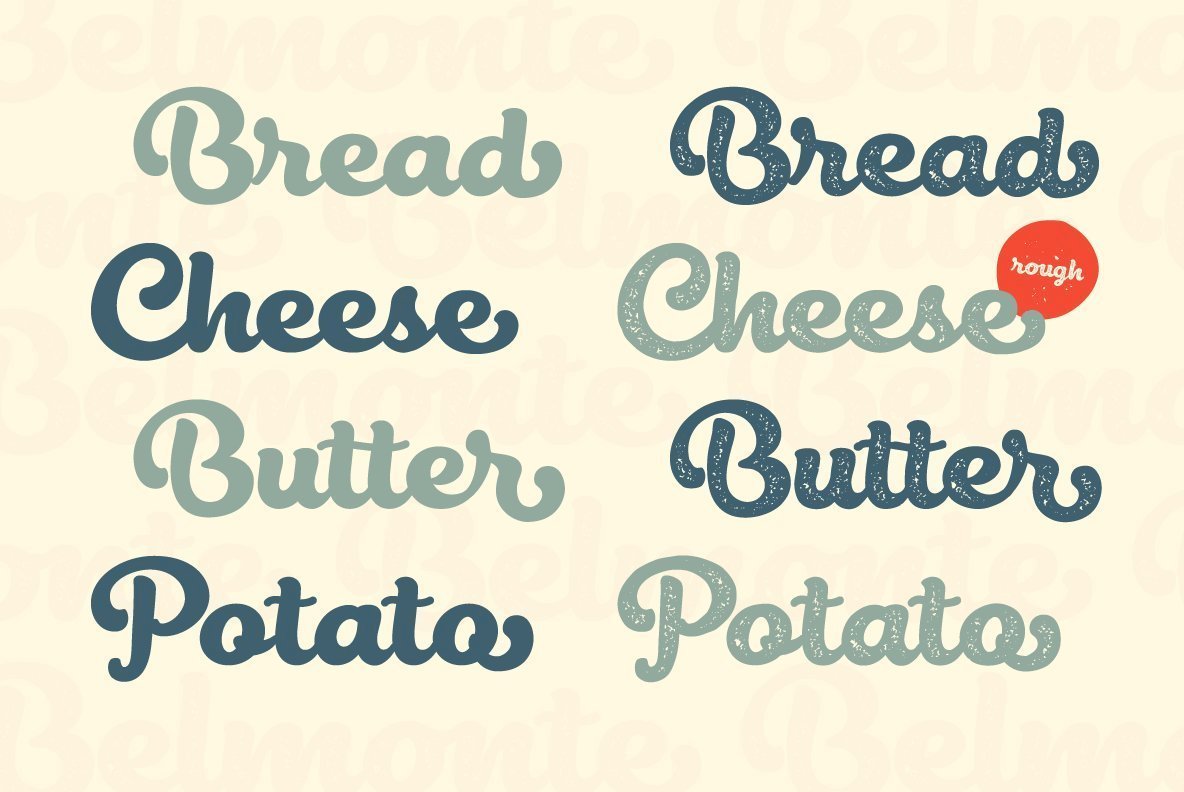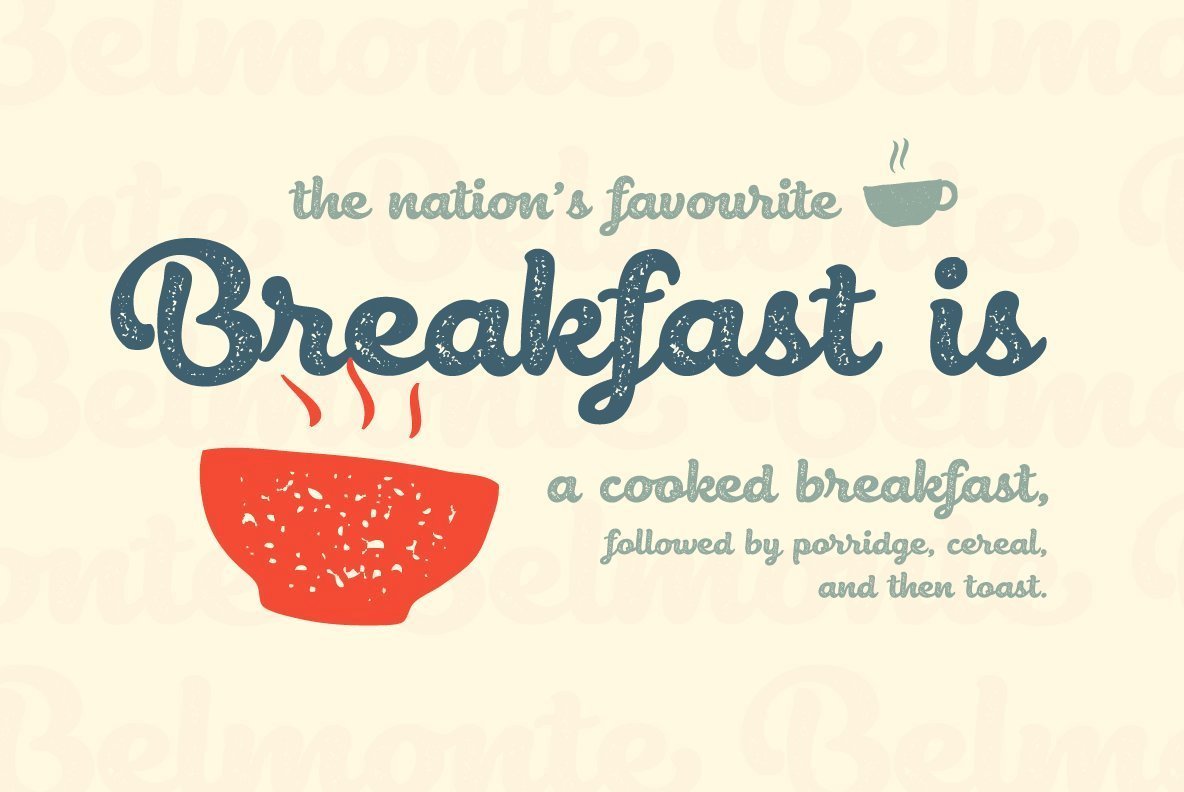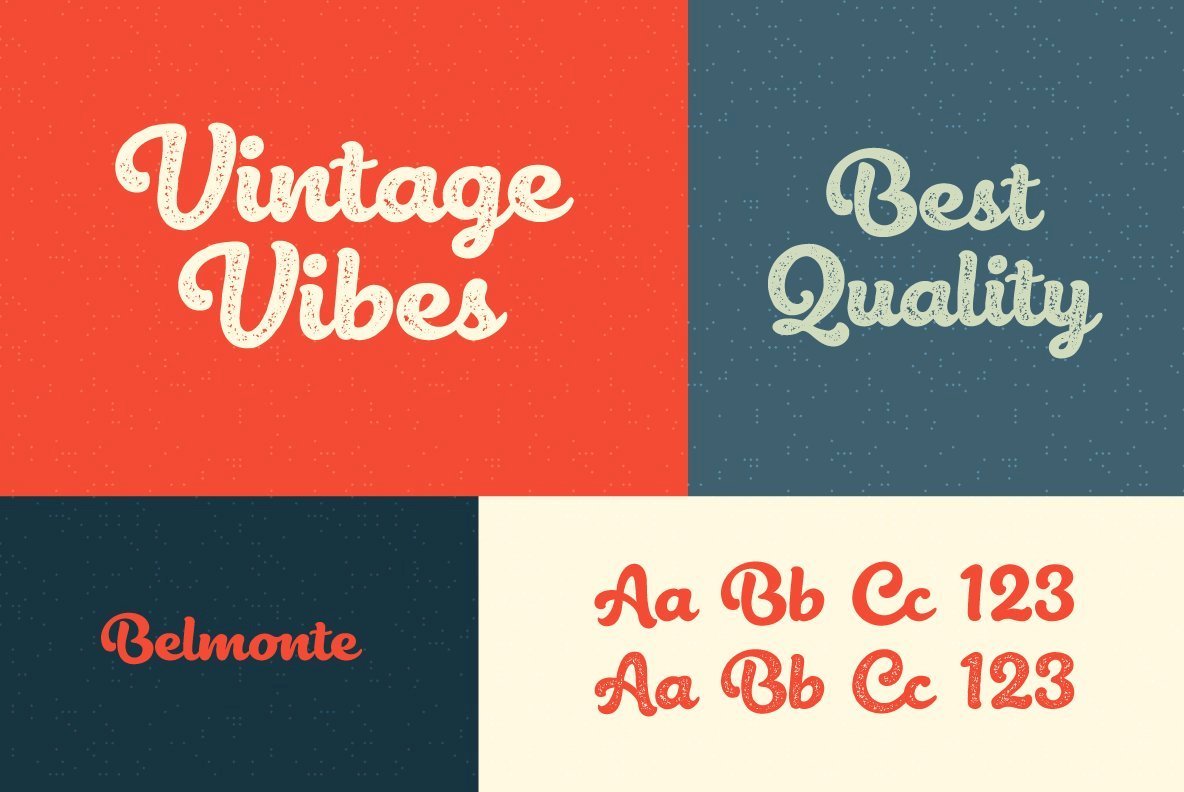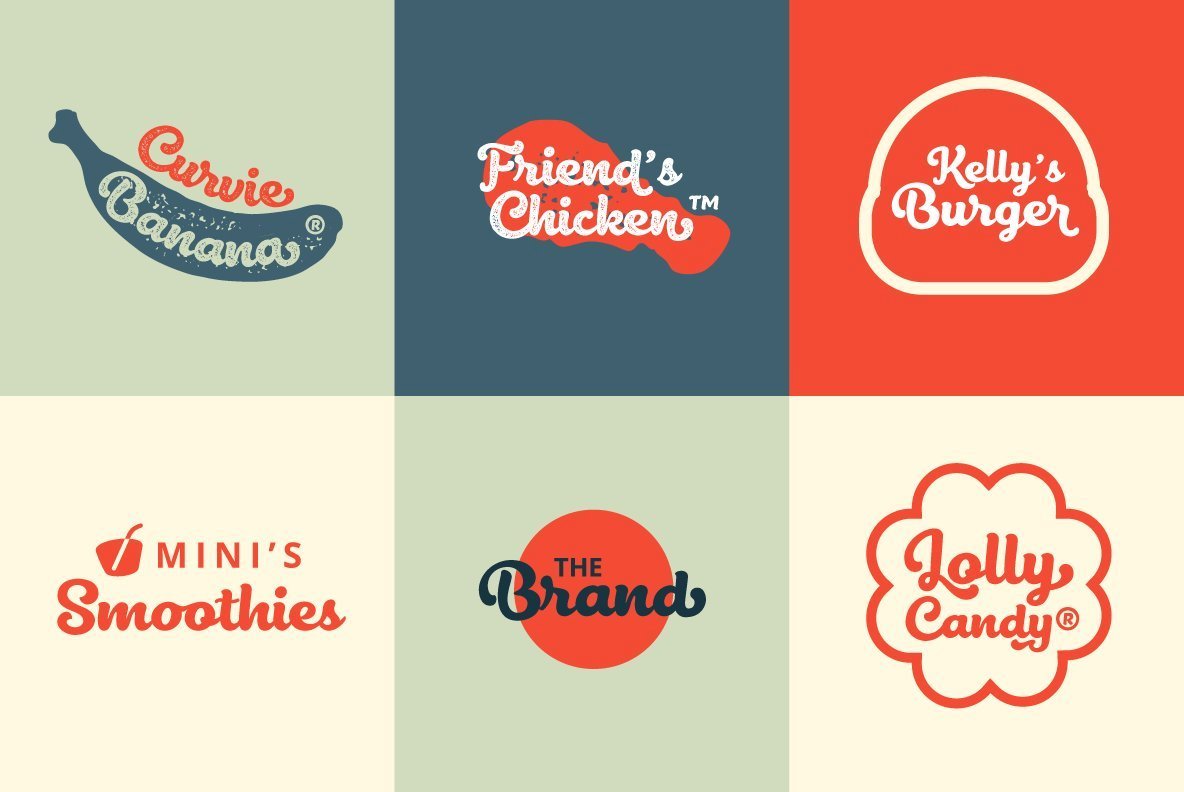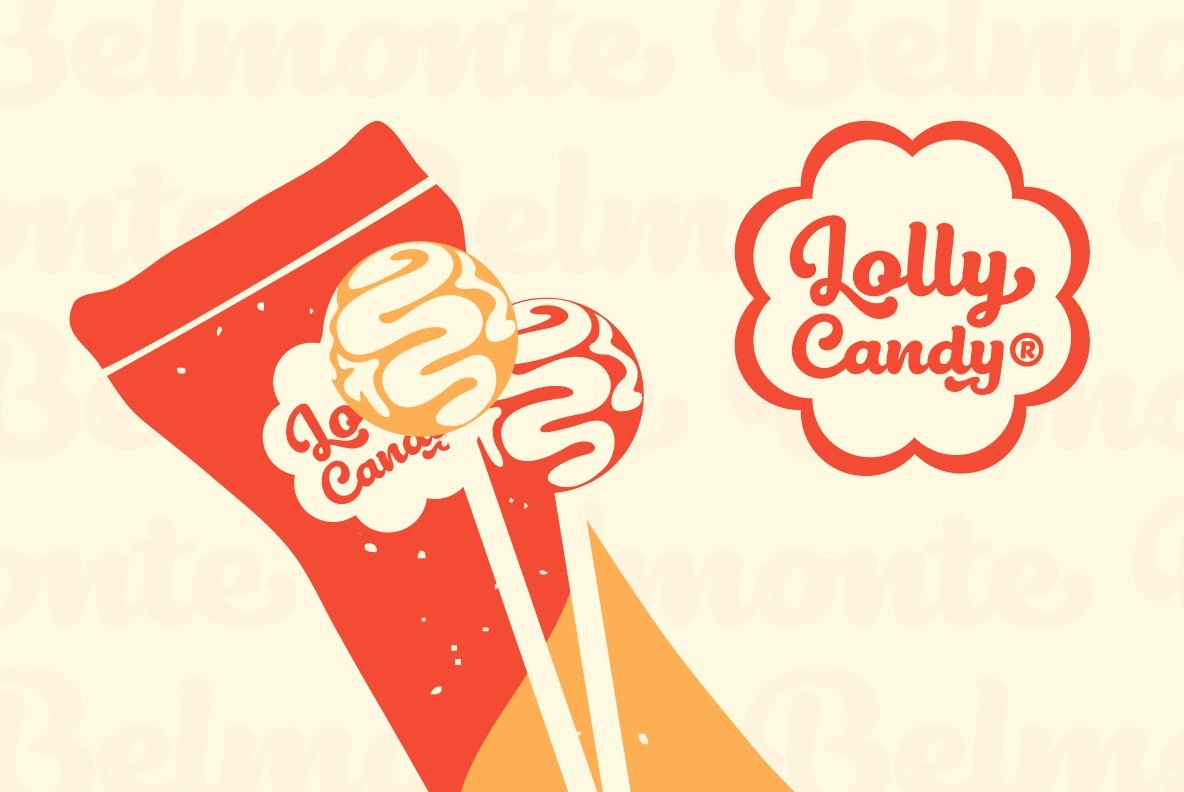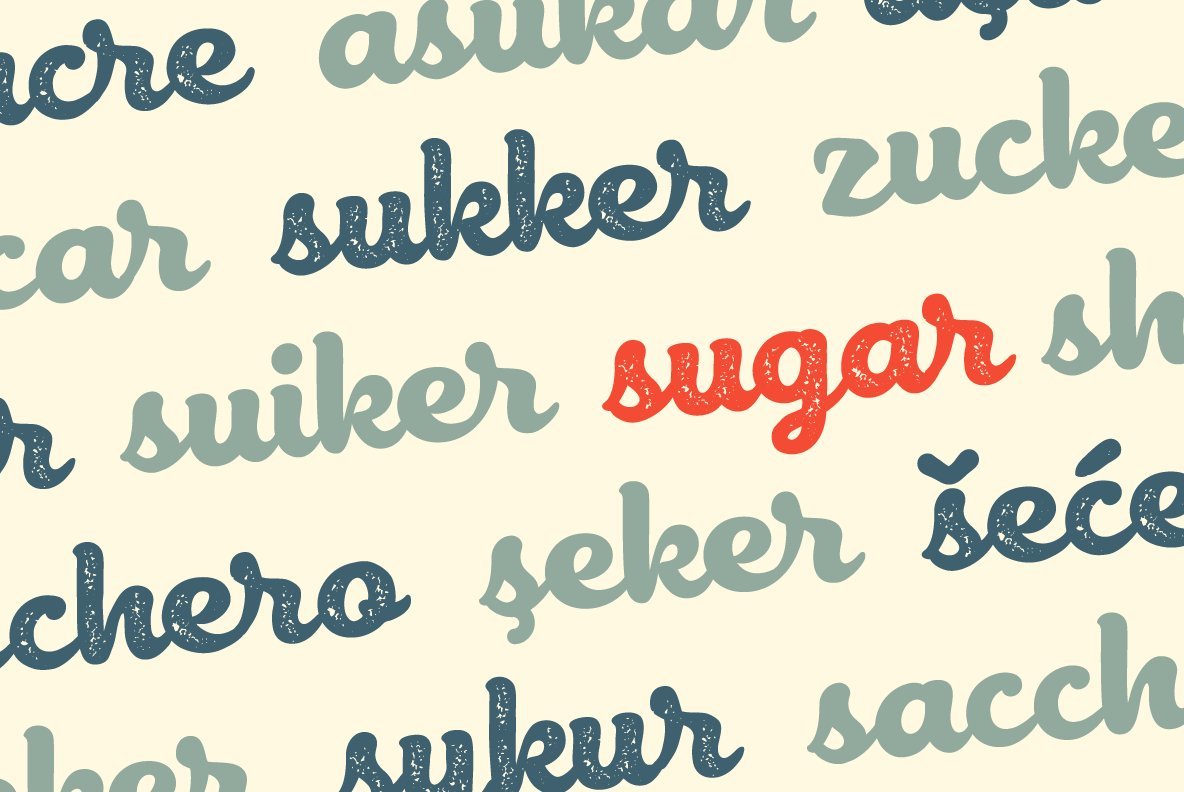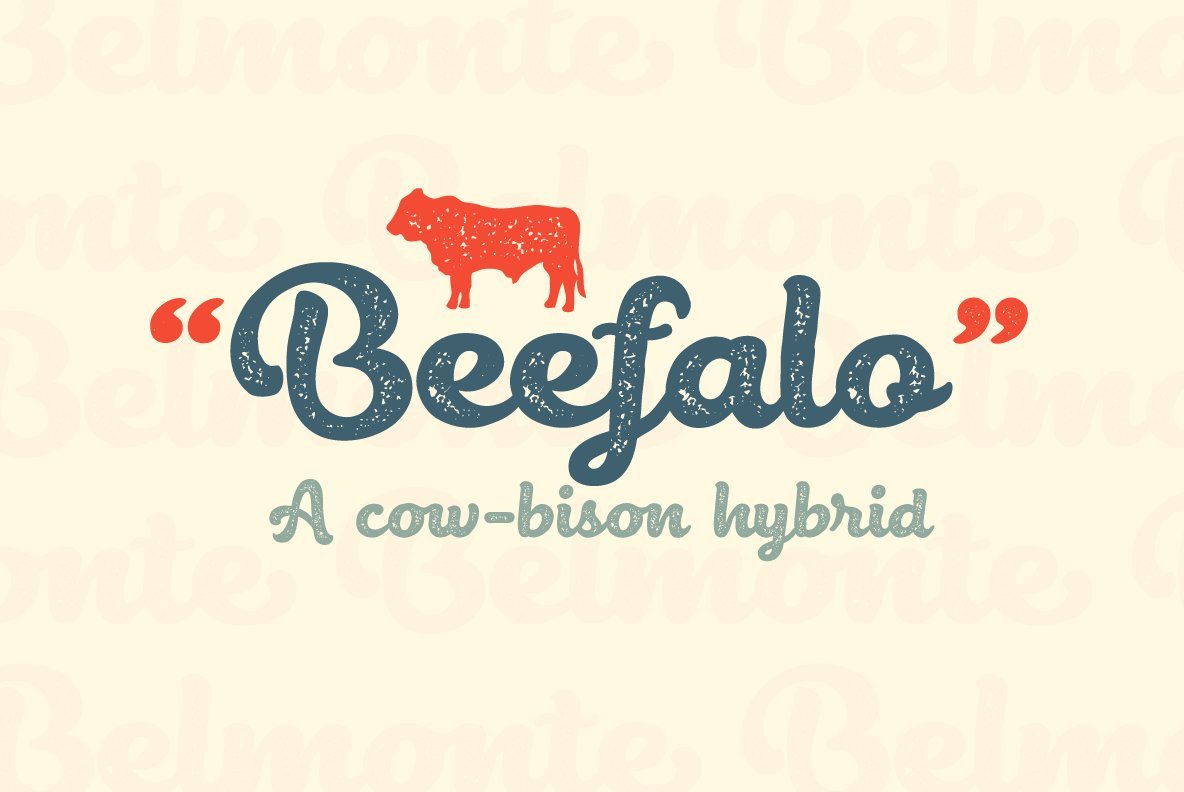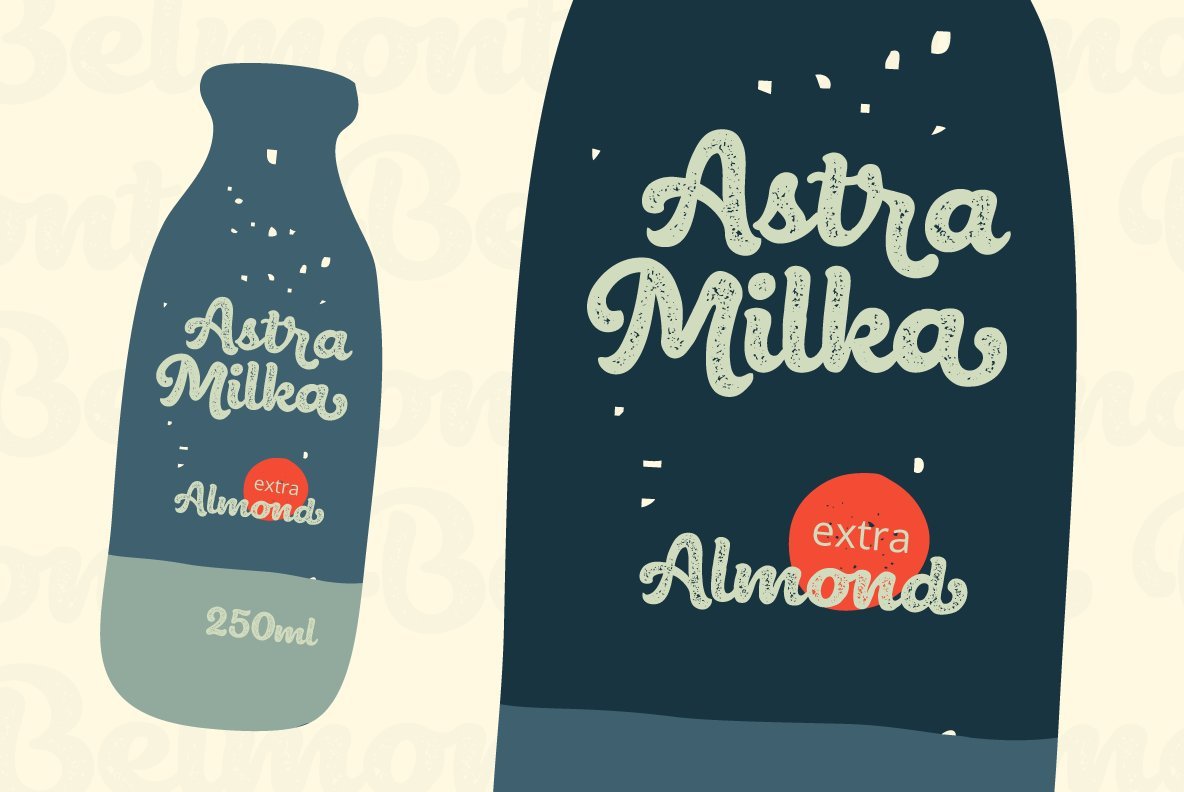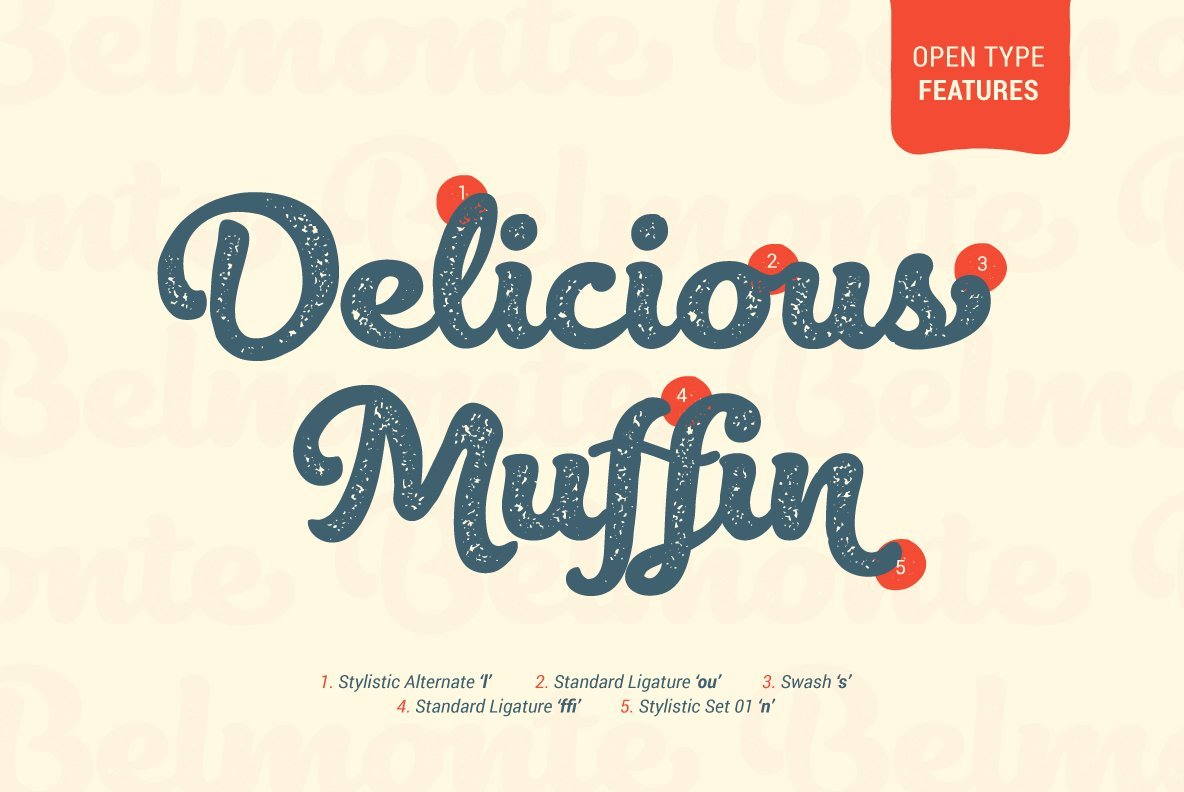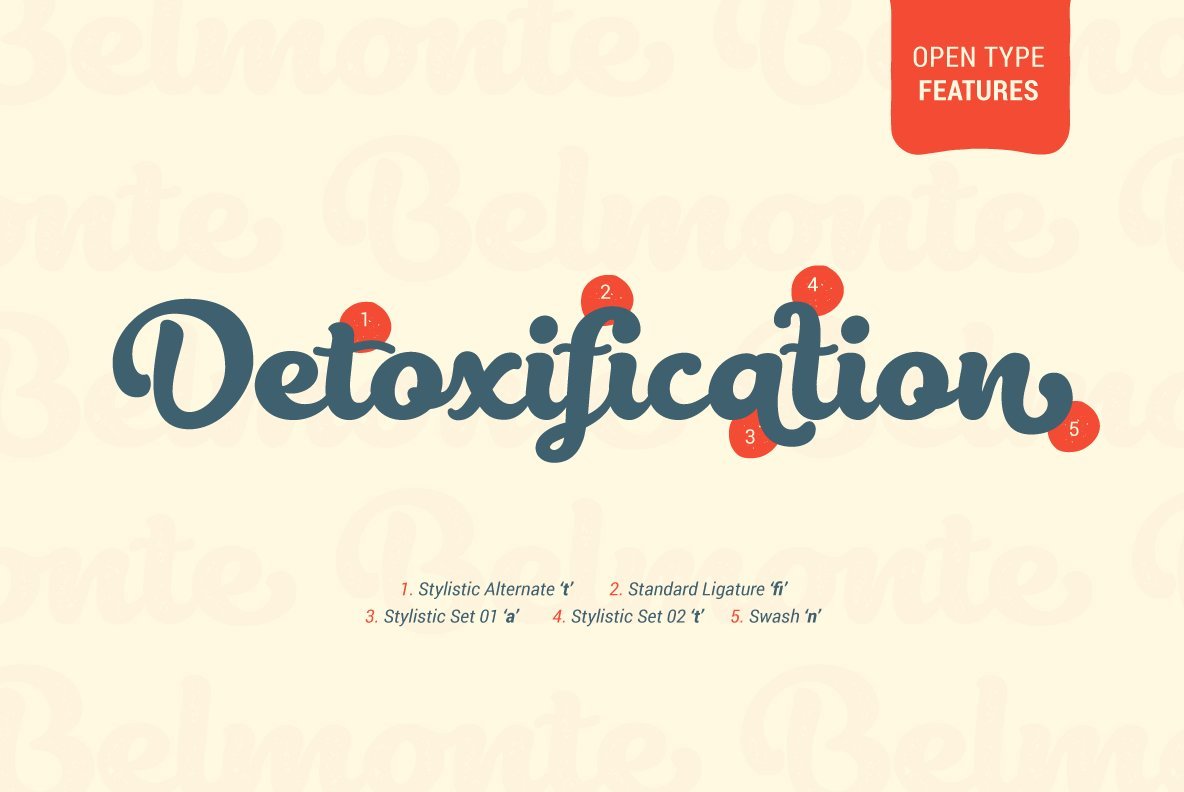
Belmonte Font
Belmonte
Belmonte Rough
Say hello to Belmonte – brother of popular Lactosa, a script font that is sweet, bold, delicious and crunchy. Belmonte comes to you with several alternate lowercase-letters for you to play with and the complete set of lowercase-letter swashes that make your word looks sweet and stand out. And the rough version will give you a vintage vibes!
It's especially created for food branding and product packaging typography (e.g.: breakfast meal, snack, honey, milk, bread and cake). It's also perfect for poster, business cards, headline, restaurant menus, and much more.